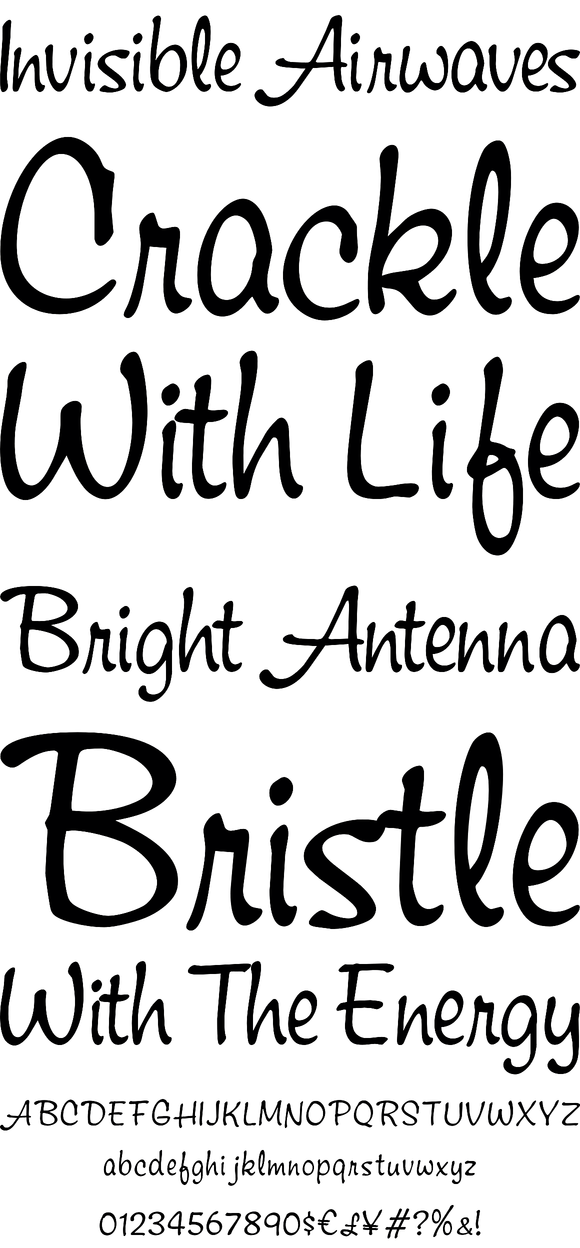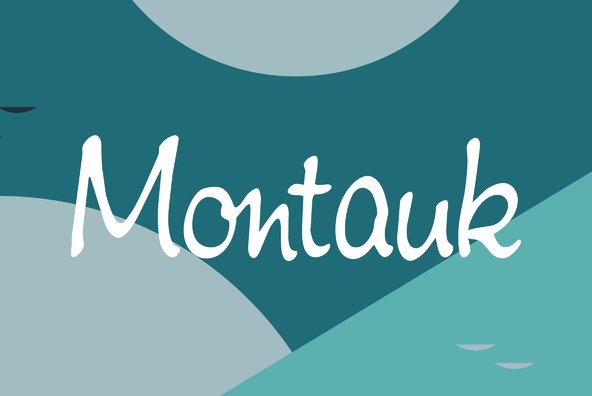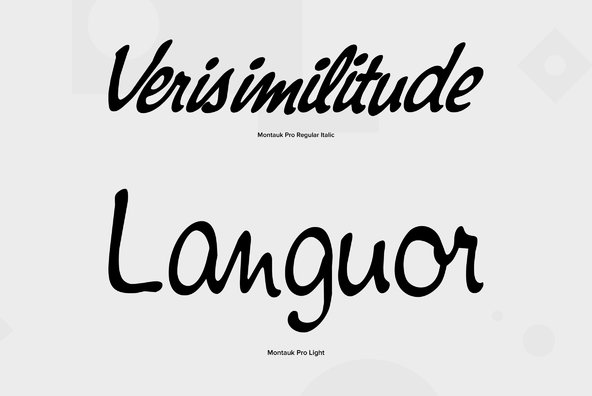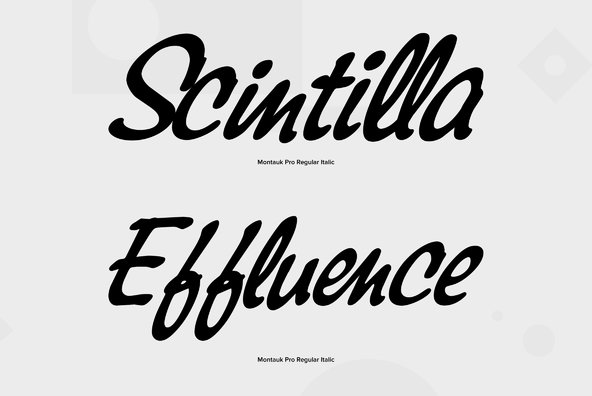
Montauk Pro
Montauk Pro is named after a small village in Suffolk County, New York on the South Shore of Long Island. It is the easternmost area in Long Island, and thus the easternmost area in New York State. It is home to Montauk Point State Park, site of the Montauk Point Lighthouse. It is named after the Montauk Indians. Montauk Pro is a casual, jaunty and quite beautiful handwriting script. It comes with six styles as light, light italic, regular, regular italic, bold and bold italic, each style with about 1.000 characters covering the complete Latin glyph set for West and East including Baltic and Turkish, including a large selection of ligatures, character combinations and alternates to make this beautiful script design a perfect font for OTF-savvy applications like e.g. InDesign or Quark Xpress 7.